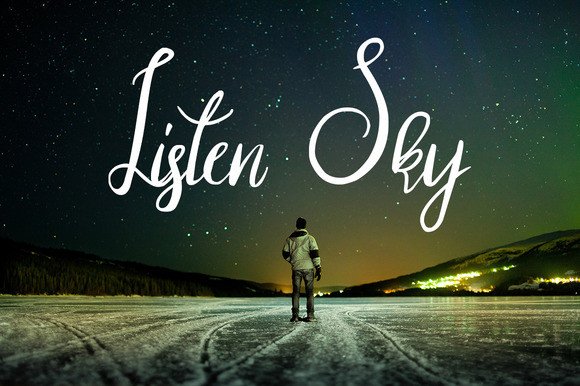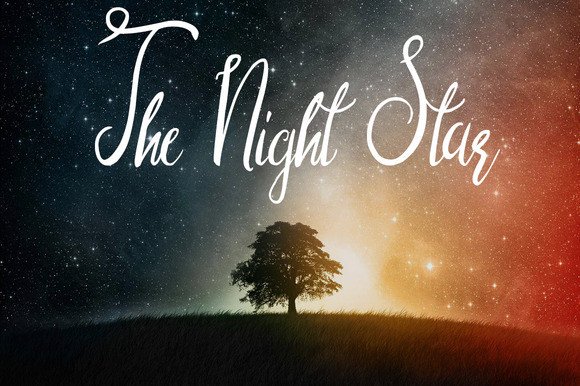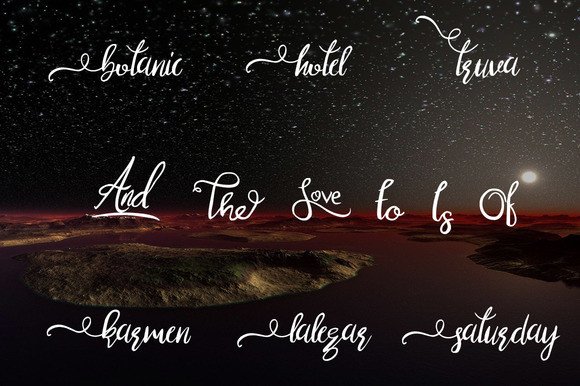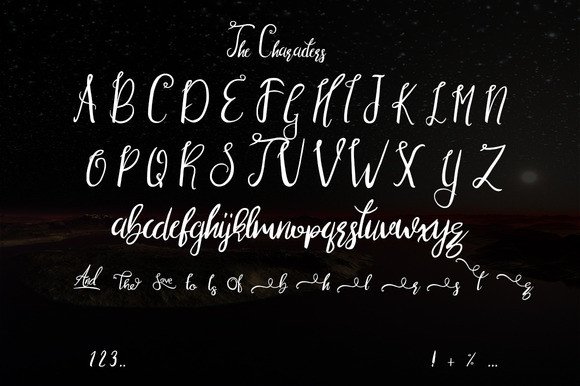
Introducing Bob Real Font: The Elegant Handmade Brush Font
Are you looking for a font that adds a touch of elegance and sophistication to your designs? Look no further than Bob Real Font, a beautiful handmade brush font that is perfect for a variety of creative projects. With its swirly letters and unique character, Bob Real Font is sure to make your designs stand out from the crowd.
What is Bob Real Font?
Bob Real Font is a handmade brush font that is designed to give your text a personal and artistic touch. The font features swirly letters that are carefully crafted to give your designs a sense of elegance and refinement. Whether you’re looking to create posters, t-shirts, letterheads, logos, labels, invitations, cards, or any other type of design, Bob Real Font is the perfect choice.
Key Features of Bob Real Font
- Handmade with love: Each letter in Bob Real Font is carefully crafted by hand, giving the font a unique and personal touch.
- Swirly letters: The font features beautiful swirly letters that add a touch of elegance and sophistication to your designs.
- Versatile: Bob Real Font can be used for a wide range of creative projects, from posters and t-shirts to letterheads and logos.
- Elegant and refined: The font has a refined and elegant feel that is perfect for designs that require a touch of sophistication.
Uses for Bob Real Font
Bob Real Font is a versatile font that can be used for a wide range of creative projects, including:
Bob Real Font is a beautiful handmade brush font that is perfect for designers and crafters who are looking to add a touch of elegance and sophistication to their designs. With its swirly letters and unique character, Bob Real Font is sure to make your designs stand out from the crowd. Whether you’re looking to create posters, t-shirts, letterheads, logos, labels, invitations, cards, or any other type of design, Bob Real Font is the perfect choice.